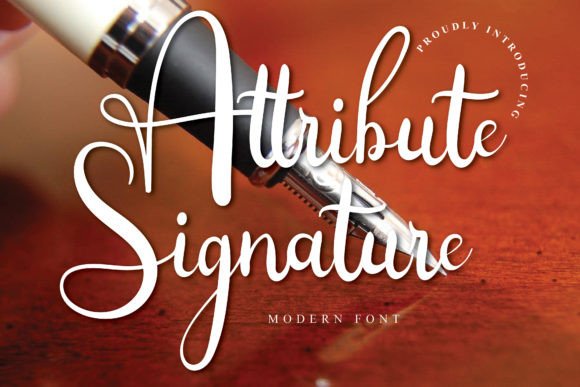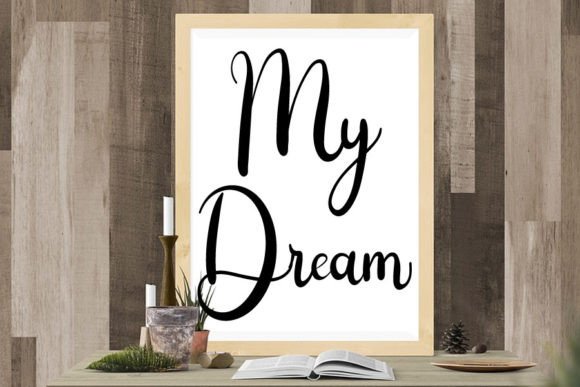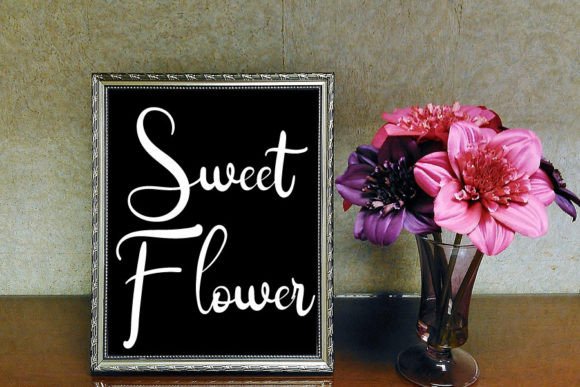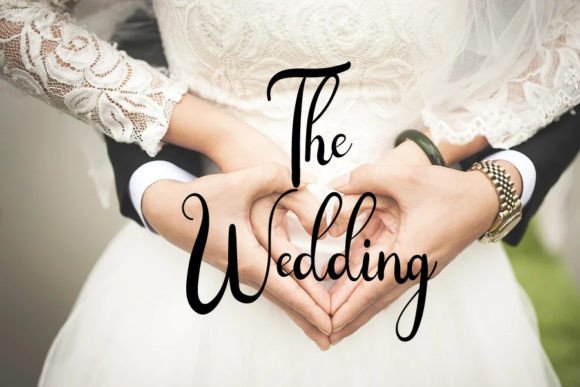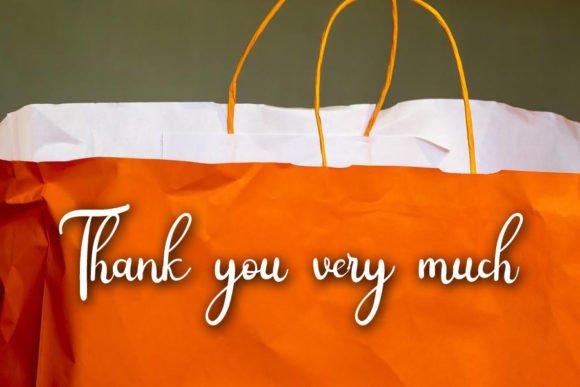
Attribute Signature Font
About Attribute Signature Font
“Attribute Signature” is a fresh and beautiful font crafted for various design purposes. Whether you’re working on YouTube banners, cover logo mockups, wedding invitations, ID cards, flyers, crafts, or any other creative project, this font is designed to bring a touch of elegance and uniqueness to your designs.
The fresh and beautiful design of “Attribute Signature” adds a contemporary and stylish flair to your text. Its simplicity and uniqueness make it a versatile choice for a wide range of applications, allowing you to express your brand or message in a distinctive way.
Envision the impact of “Attribute Signature” on your YouTube banners—it transforms the text into a visually appealing and modern representation of your content. In wedding invitations or ID cards, it adds a touch of elegance, creating a sophisticated impression. When applied to logos or cover logo mockups, it becomes the key element that enhances the overall aesthetic with its fresh and beautiful signature.
Incorporate “Attribute Signature” into your design toolkit and witness how it contributes to the progress and development of your business. Let its fresh and beautiful design be the defining feature that adds a touch of sophistication and uniqueness to your designs. Whether you’re crafting for digital or print platforms, “Attribute Signature” offers a versatile and expressive solution for your typographic needs.